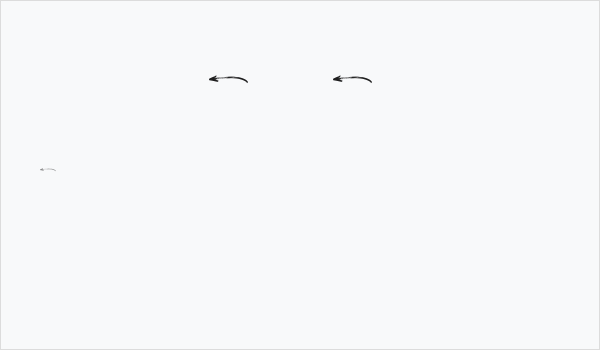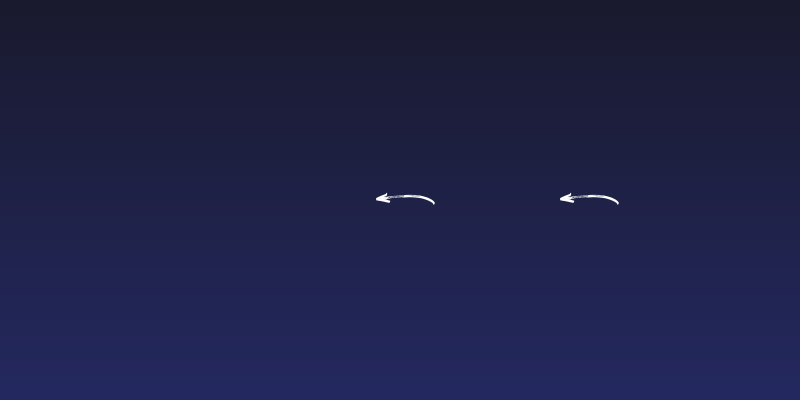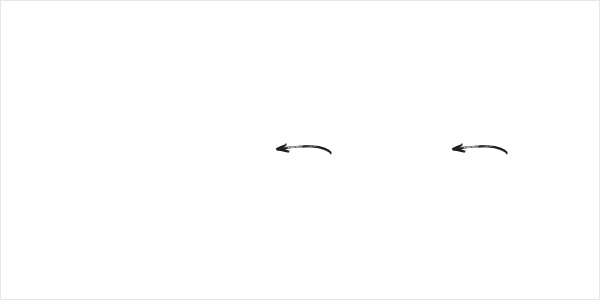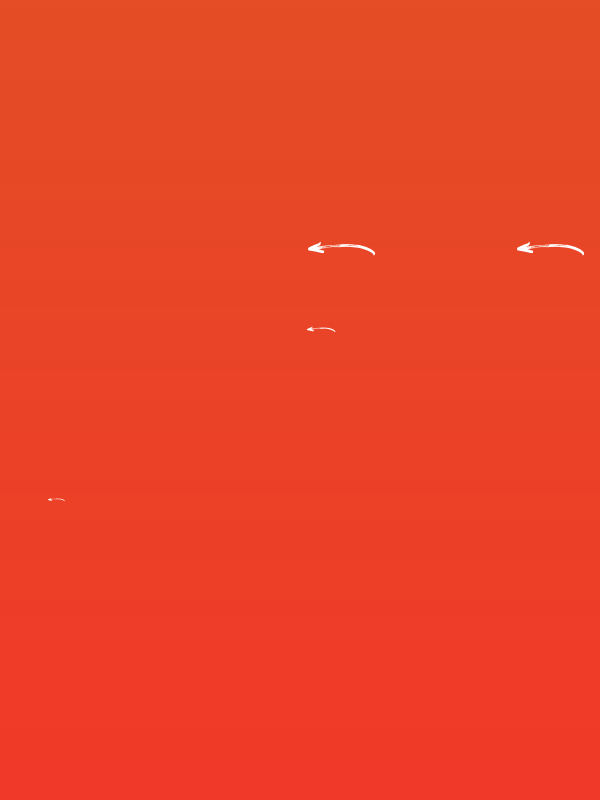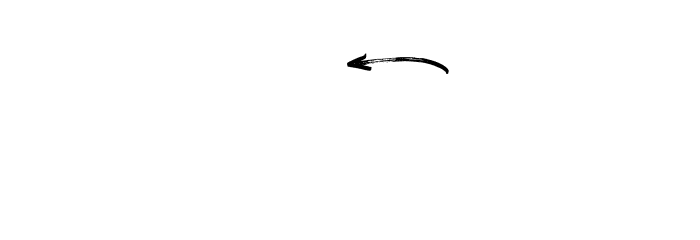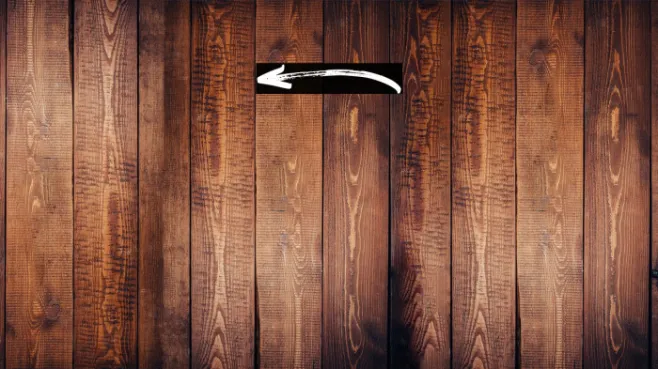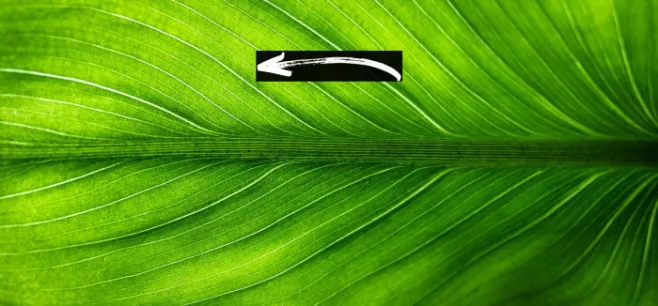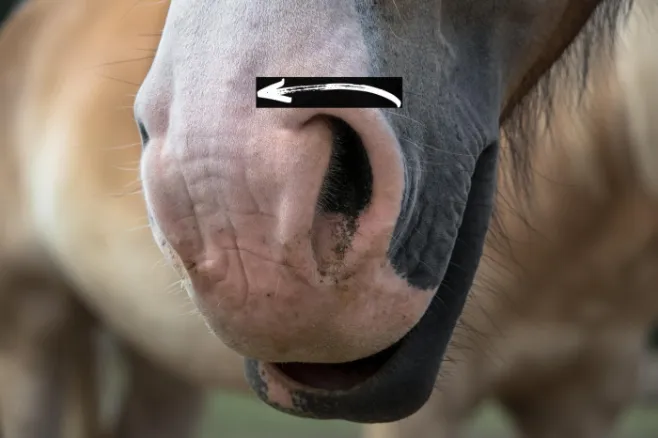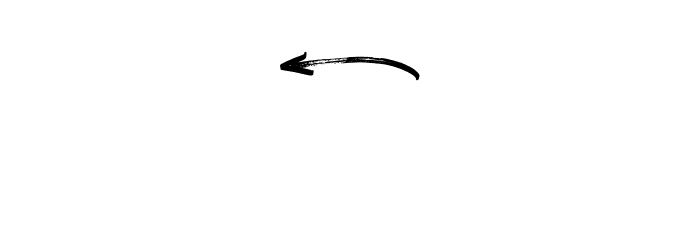
Sabertooth Swashes Font
Sabertooth Swashes Description
This image contains hand-drawn, textured arrow swashes with a rough, sketch-like appearance, featuring variable stroke thickness and a casual, organic style.
| Overall Style | Decorative, Hand-drawn, Sketchy |
| Use Case | Decorative elements, accents, visual emphasis |
| Proposed Projects | Social media graphics, posters, invitations, scrapbooking, decorative headings. |